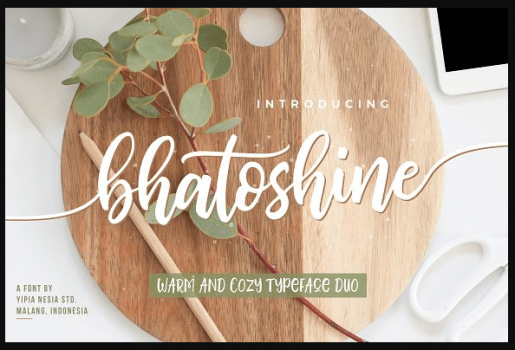
A hand brushed, fun, warm, and cozy typeface duo with extras.
Bhatoshine Fancy Font Duo is A hand brushed, fun, warm, and cozy typeface duo with extras. These 2 hand-brushed fonts are perfectly combined with one another. The Bhatoshine Regular font combines with the Bhatoshine Caps font to make each word unique, and BOOM! The beautiful typography!